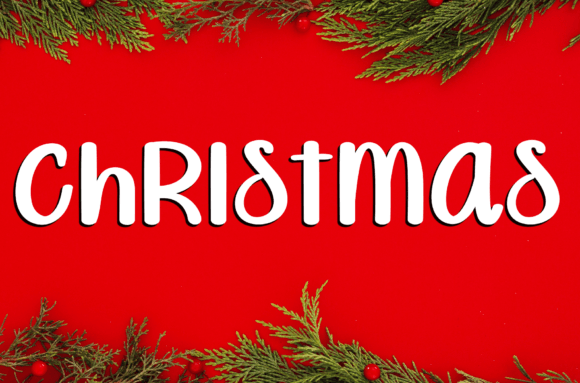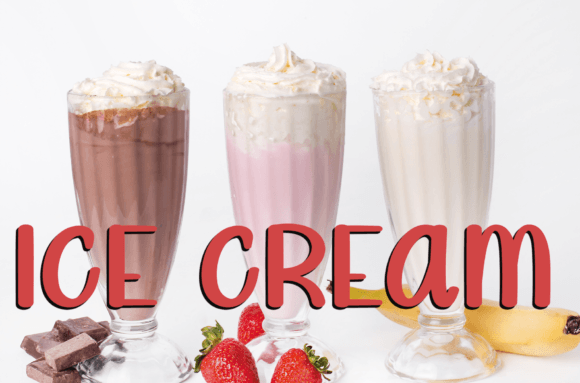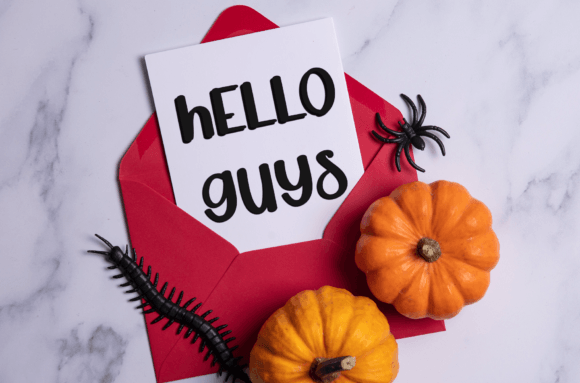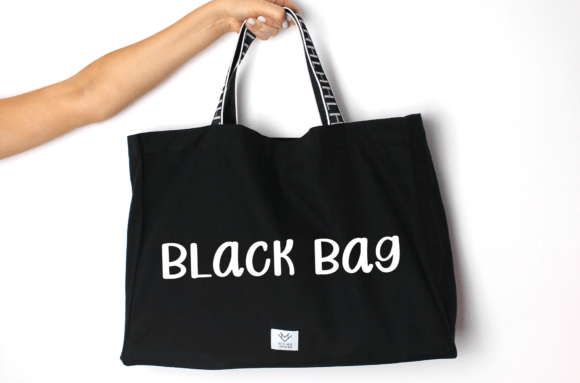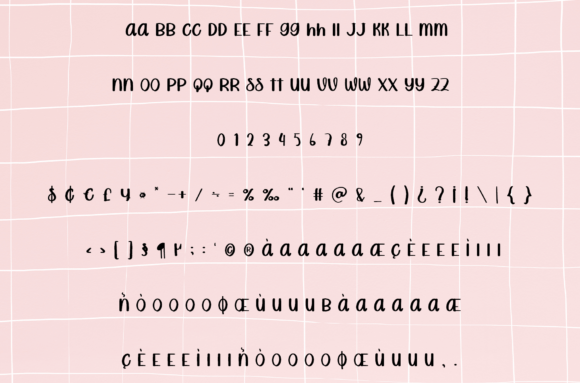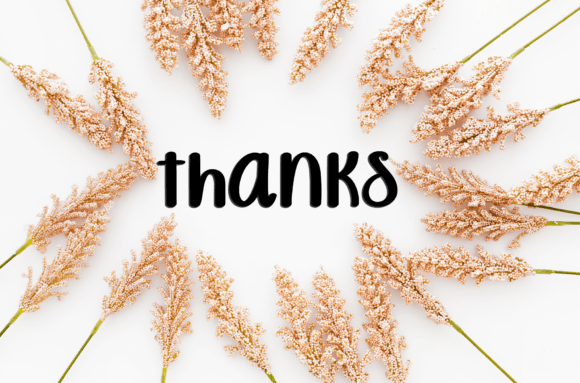
Winter Snow Font
About Winter Snow Font
Winter Snow font is a simple and friendly handwritten typeface designed to bring warmth and personality to your creative projects. Whether you’re crafting, working on digital designs, preparing presentations, or creating heartfelt greeting cards, Winter Snow font can become your favorite choice. Its approachable style and clean lines make it suitable for a wide variety of occasions and design needs.
Warm and Inviting Handwritten Style
Winter Snow font features a gentle and natural handwritten look that adds an authentic feel to your work. The balanced strokes and flowing letters ensure excellent readability while giving your designs a warm and inviting appearance. This font’s charm lies in its simplicity, making your projects feel personal and genuine.
Ideal for Crafting and DIY Projects
If you enjoy crafting or DIY projects, Winter Snowfont is a great addition. It enhances handmade cards, personalized gifts, labels, and scrapbooks by adding a soft, handwritten touch. Its clean and simple style blends seamlessly with many craft aesthetics, making your creations even more special.
Perfect for Digital and Presentation Designs
Winter Snowfont adapts beautifully to digital platforms. Use it for social media posts, blog headers, websites, or business presentations to add a friendly, human touch. Its clarity ensures your message is easy to read and visually appealing across various screen sizes.
Great Choice for Greeting Cards and Invitations
Greeting cards and invitations require a font that expresses sincerity and warmth. Winter Snowfont excels here by offering a personal, handwritten vibe. Whether for holiday greetings, thank-you cards, weddings, or birthdays, it adds a heartfelt and intimate tone to your messages.
Versatile for Various Projects
Despite its simplicity, Winter Snowfont is highly versatile. It suits casual, playful designs as well as more refined projects needing a handwritten charm. From branding and packaging to quotes and posters, this font enhances your work with a soft and inviting style.
Why Choose Winter Snow Font?
Choosing Winter Snowfont means choosing a typeface that combines simplicity with personality. It delivers a clean, friendly handwritten look without compromising professionalism or readability. Whether you are a designer or a creative hobbyist, this font can elevate your projects and make them more engaging.
Add Winter Snow Font to Your Design Toolbox
Winter Snowfont is ready to become your go-to font for all kinds of projects. Its simple, friendly style brings warmth and character to your creative work. Give Winter Snowfont a try today and experience a versatile and charming handwritten typeface perfect for any occasion.